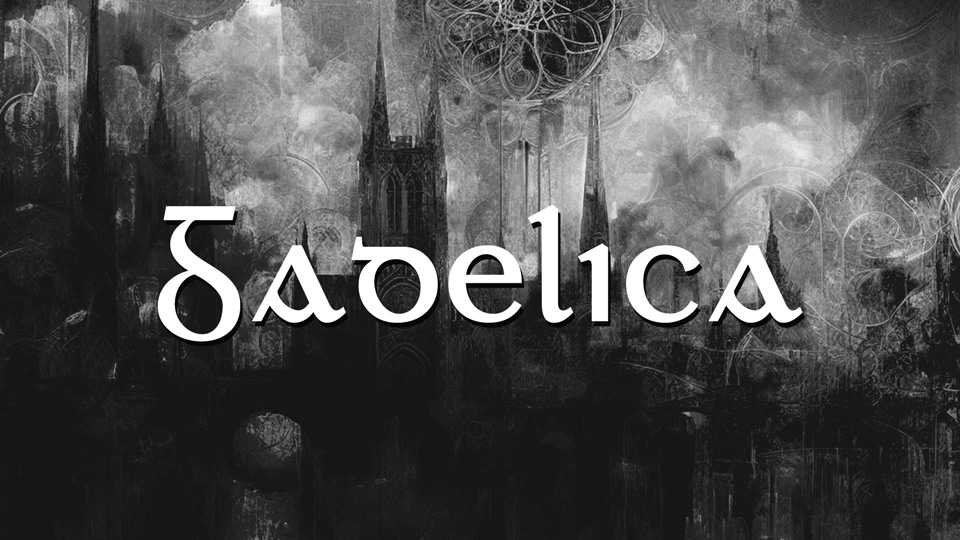
Download Gadelica is a cló Gaelach (Irish type) based on the first authentic examples from the seventeenth century. Gadelica follows the model of the first authoritative Gaelic fonts from the seventeenth century except that the letters were regularized.